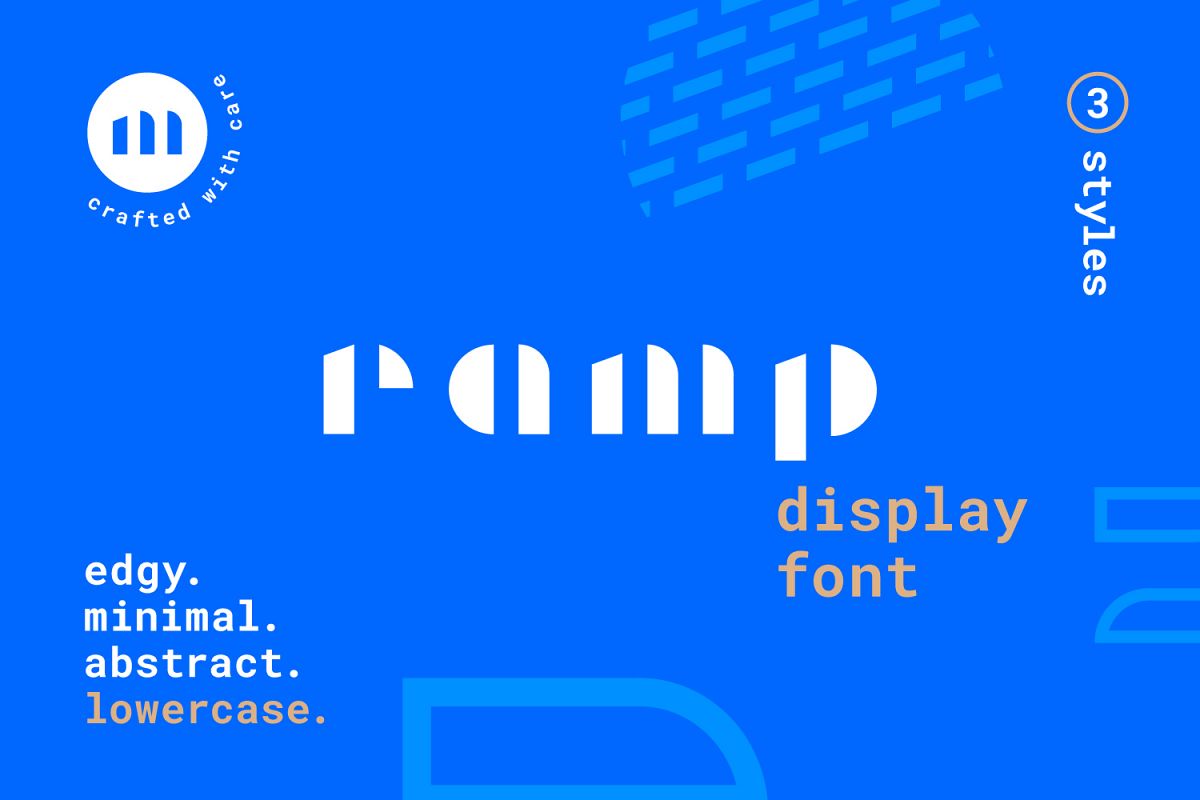
Ramp Display Font
Ramp-Outline
Ramp-Regular
Ramp-Pattern
An abstract, geometrical and minimal display font that has been carved with the highest attention to detail to save you time and help your next branding, web, or packaging project stand out from the crowd! You can crank up the abstract aesthetic even more with three unique styles of the font that can be layered together or used on their own. Also included is the same pattern used in the pattern font style as both a vector shape and Illustrator swatch.
• Lowercase Characters
• Punctuation
• 3 Unique Styles: Regular, Outline, and Pattern